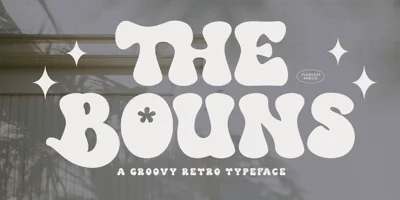
The Bouns Font
The Bouns Font is ideal for energetic sports branding, dynamic fitness marketing, bouncing ball sports promotions, athletic equipment advertising, recreational activity campaigns, playground design projects, youth-oriented communications, and vibrant movement-based applications. This lively typeface brings kinetic energy, playful dynamism, and athletic sophistication to any project celebrating physical activity, recreational sports, and the exhilarating joy of movement and active lifestyle pursuits.
What makes The Bouns Font exciting is its extraordinary ability to capture the essence of bouncing movement through letterforms that seem to leap with athletic energy and pulse with the rhythmic vitality of sports and physical activity. The font features dynamically proportioned character shapes with bouncing curves, energetic spacing that creates visual rhythm, and playful details that evoke the joy of recreational sports and the infectious enthusiasm of athletic participation. Its kinetic character embodies the spirit of active living and recreational excellence, making it perfect for brands that want to communicate energy, fun, and the irresistible appeal of sports participation and active lifestyle choices.
The The Bouns Font family typically includes regular and bold weights with dynamically designed uppercase and lowercase letters, athletic numerals, and comprehensive punctuation marks that maintain the font's energetic appeal and sports authenticity. The design emphasizes kinetic movement while providing practical typography options for contemporary sports and recreation communication applications that require both dynamic character and functional readability.
Whether you're creating sports brand identities or developing recreational activity marketing materials, The Bouns Font provides unmatched athletic authenticity and kinetic appeal. This typeface excels in applications where its bouncing character can communicate energy and athletic enthusiasm. Its dynamic aesthetic makes it particularly effective for sports organizations, fitness centers, and recreational brands that want to associate with movement and athletic excellence. The font's energetic presence helps establish active connections while ensuring memorable recognition through typography that celebrates the essential vitality of The Bouns Font sports participation and kinetic movement.